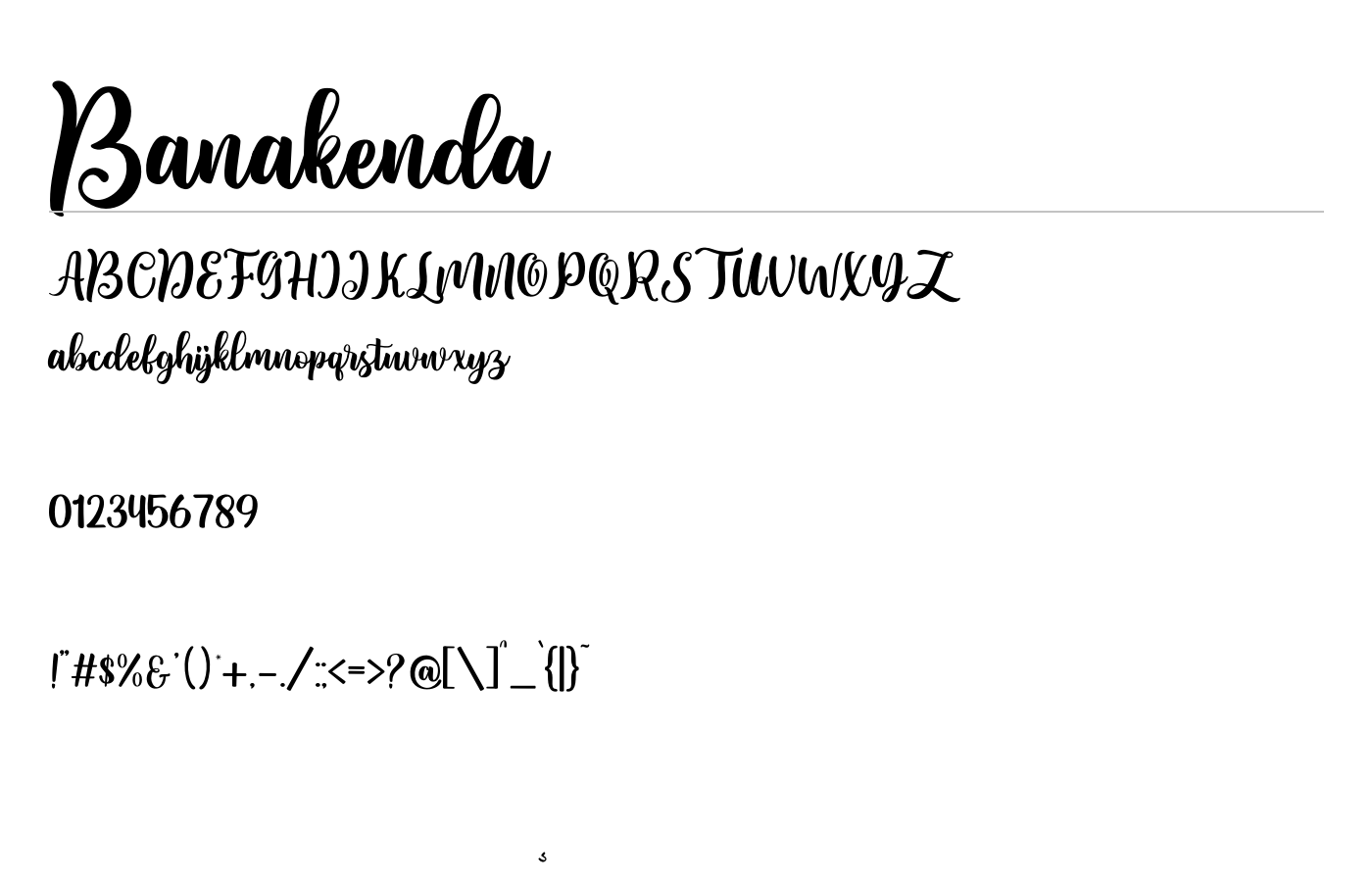
Banakenda is a stylish script font that combines bold, smooth strokes with playful curves, giving it a lively and modern feel. Its high contrast and flowing letterforms make it perfect for eye-catching headlines, branding, and creative projects that seek a friendly yet elegant touch. This font works beautifully in logos, invitations, and any design that benefits from a personalized, handwritten aesthetic.
Banakenda Font
About Banakenda Font
| Designer | Andri Ardianto & Madatype Studio |